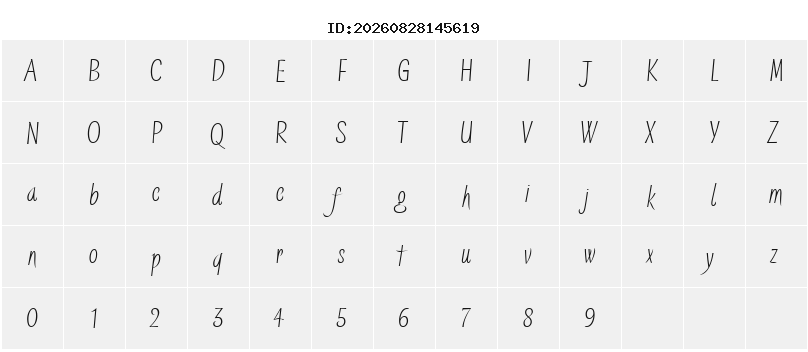
Tisdall Script II Preview
• Font Name: Tisdall Script II
• Full Font Name: Tisdall Script II
About Tisdall Script II.ttf
Tisdall Script II.ttf is a modern, elegant sans-serif font designed for ultimate readability and visual harmony. Perfect for branding, headlines, web design, and print materials.